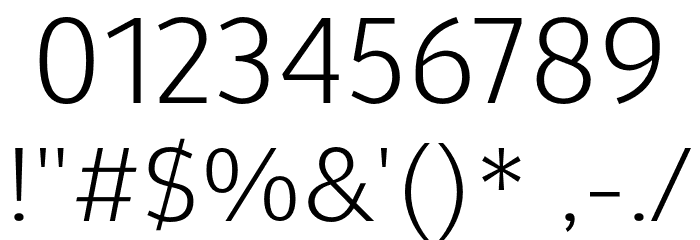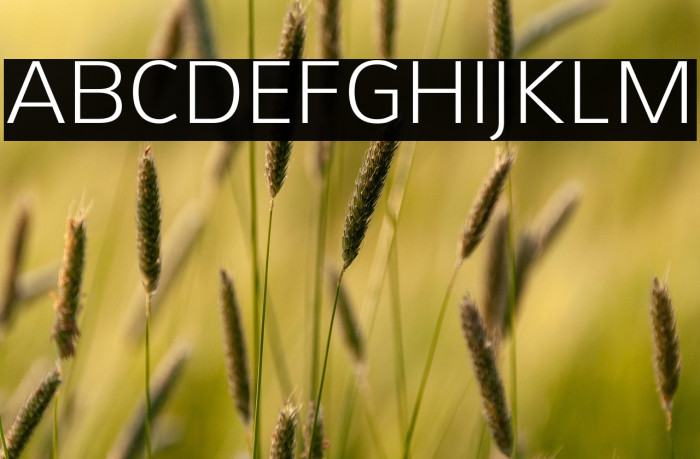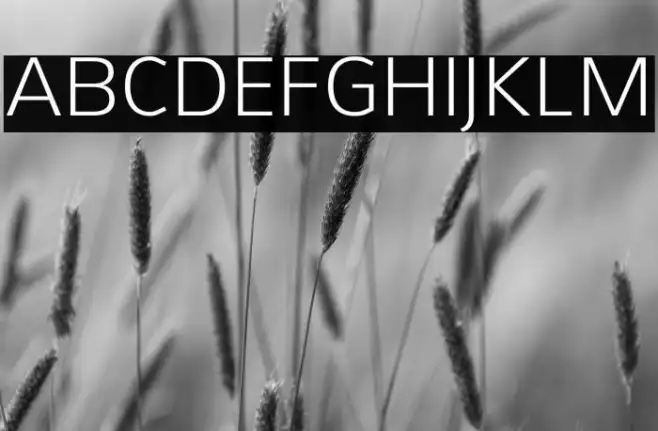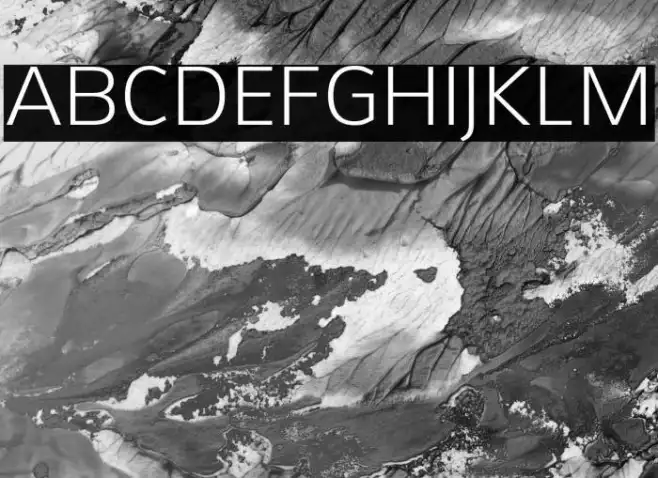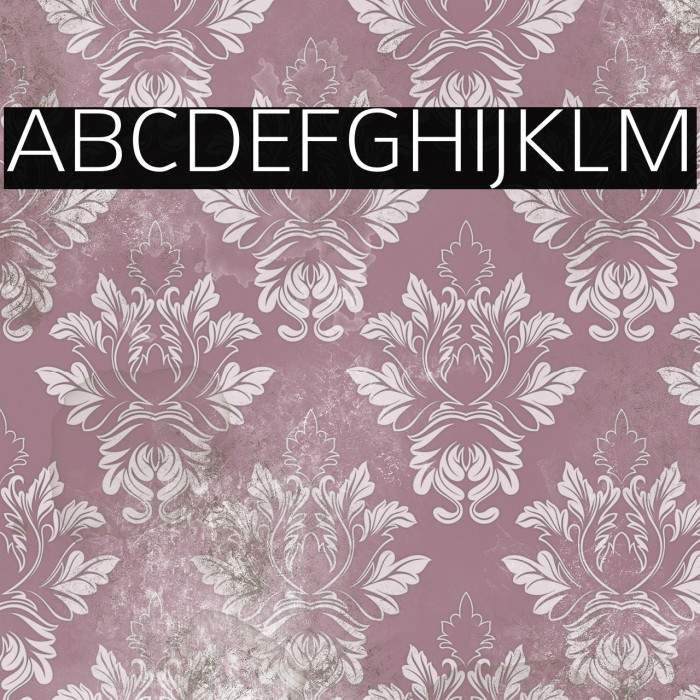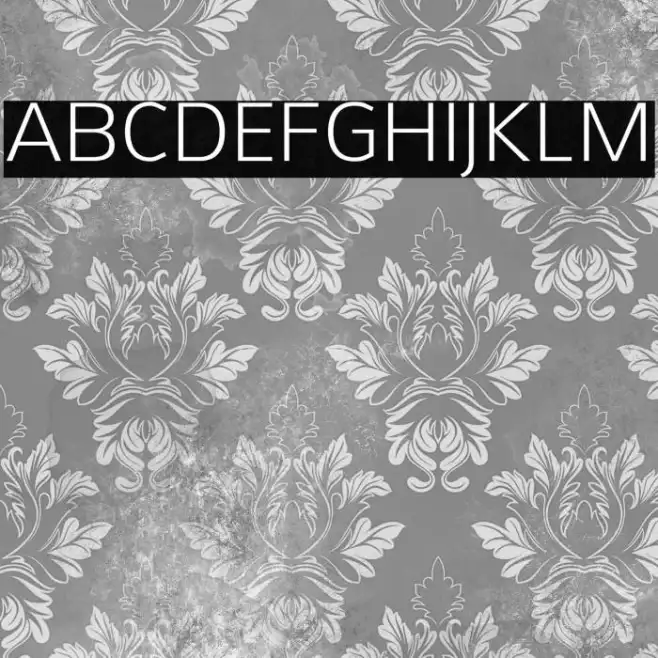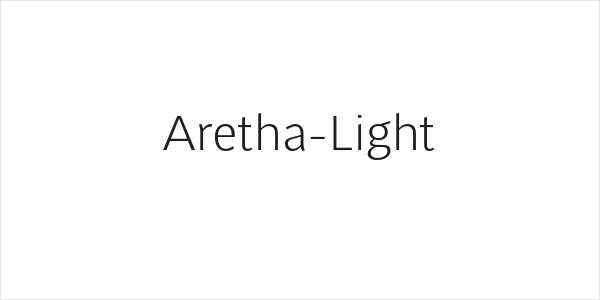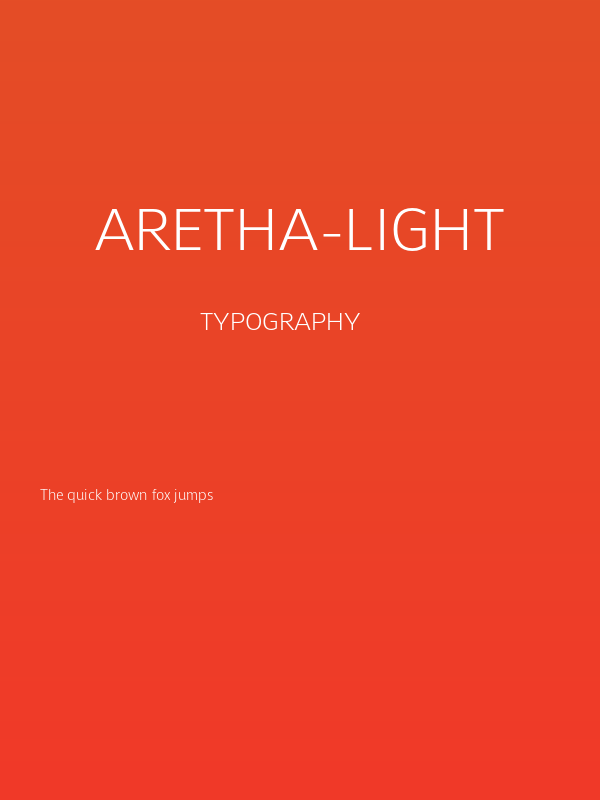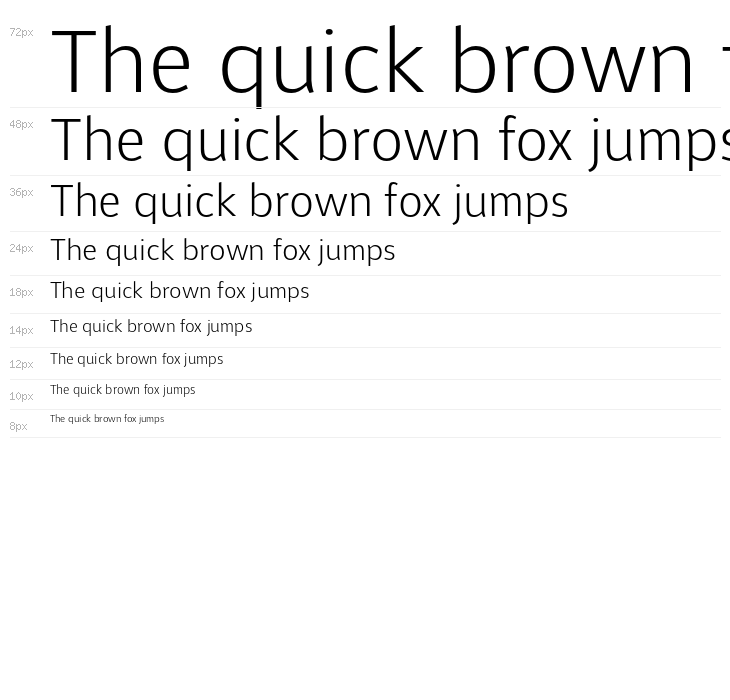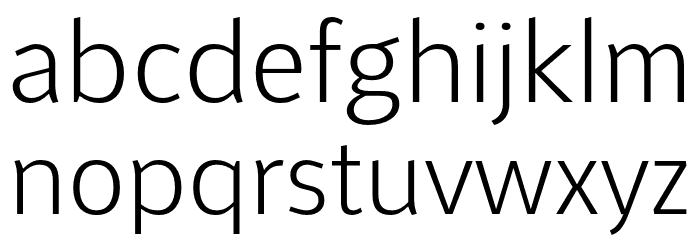
Aretha-Light Font
Aretha-Light Description
This font features a clean and modern sans-serif design with a light weight, making it ideal for a wide range of applications. The characters are well-proportioned with a consistent stroke width, providing a harmonious and balanced appearance. The uppercase and lowercase letters are distinct and easy to read, while the numerals and special characters maintain the same clarity and simplicity. The overall design is minimalistic, with a focus on legibility and functionality, making it suitable for both digital and print media.
Use CaseHeadlines, Body text, Logos
Proposed ProjectsIdeal for web design, corporate branding, user interfaces, and editorial design.